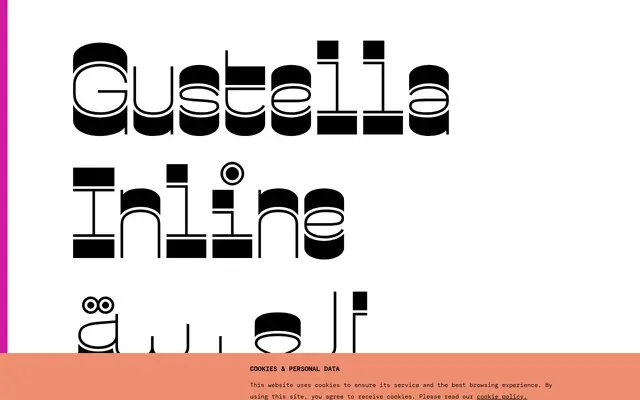
Gustella Inline Arabic
An extreme reverse-contrast inline typeface supporting both Latin and Arabic scripts, the Arabic extension of Thomas Thiemich's Gustella superfamily released in December 2020.
Part of the Gustella superfamily alongside Solid, Stripes and Boxed variants, the Inline Arabic cut applies severe reverse contrast and inline detailing to a design with roots in nineteenth-century Western wanted-poster lettering and seventies psychedelic graphics. The Arabic extension, published in December 2020, pairs the Latin characters with a matching Arabic script, making it one of the few reverse-contrast display families to span both scripts with consistent weight and metric harmony. Four weights from Thin to Bold share identical metrics across the superfamily, allowing overprinting between variants for layered effects.
Gustella Inline Arabic is a display typeface with extreme reverse contrast, drawing on nineteenth-century Western slab serif lettering traditions and seventies graphic design. The inline treatment and high-contrast letterforms place it firmly in the decorative display category.